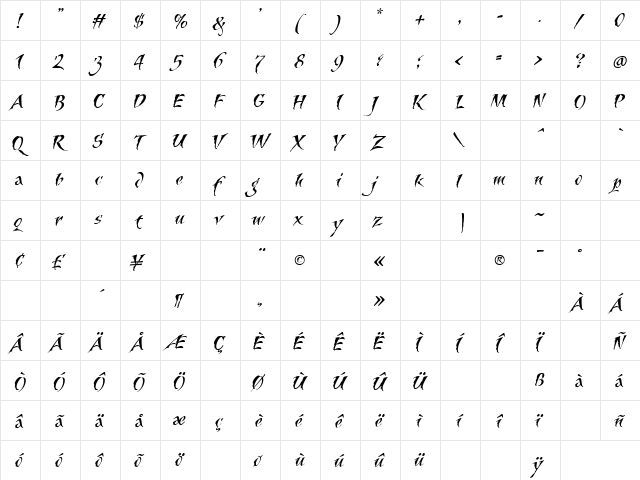
Beanwood Script Regular Font Preview
Beanwood Script Regular
Design Context for Beanwood Script Typeface
Beanwood Script echoes the hand-painted signage and woodblock typography of the American frontier, with a warm, rugged personality.
A natural fit for craft spirits, ranch branding, rodeo events, and Americana-inspired design work.
Font Pairing: Combine Beanwood Script with a simple slab or neutral sans — period-accurate companions reinforce the vintage feel without competing for attention.
Pro Tip: Use Beanwood Script for short, impactful bursts of text — it shines in poster headlines and product names rather than extended copy.